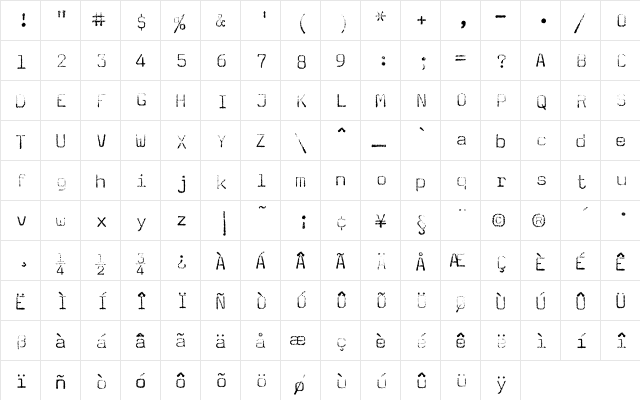
Magda Thin
Design Context for Magda Typeface
Magda is a composed and adaptable typeface that performs quietly and consistently across a wide range of design contexts. The delicate stroke weight brings airiness and refinement to layouts.